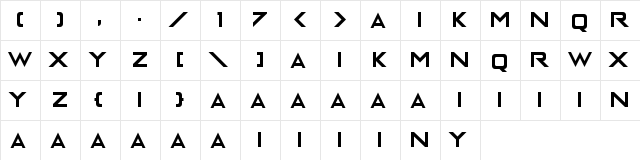
Enter The Grid Regular
| Designer | Andrew McCluskey |
Design Context for Enter The Grid Typeface
Enter The Grid offers clean, dependable letterforms without strong stylistic allegiance, making it a practical choice for designers who need flexibility.